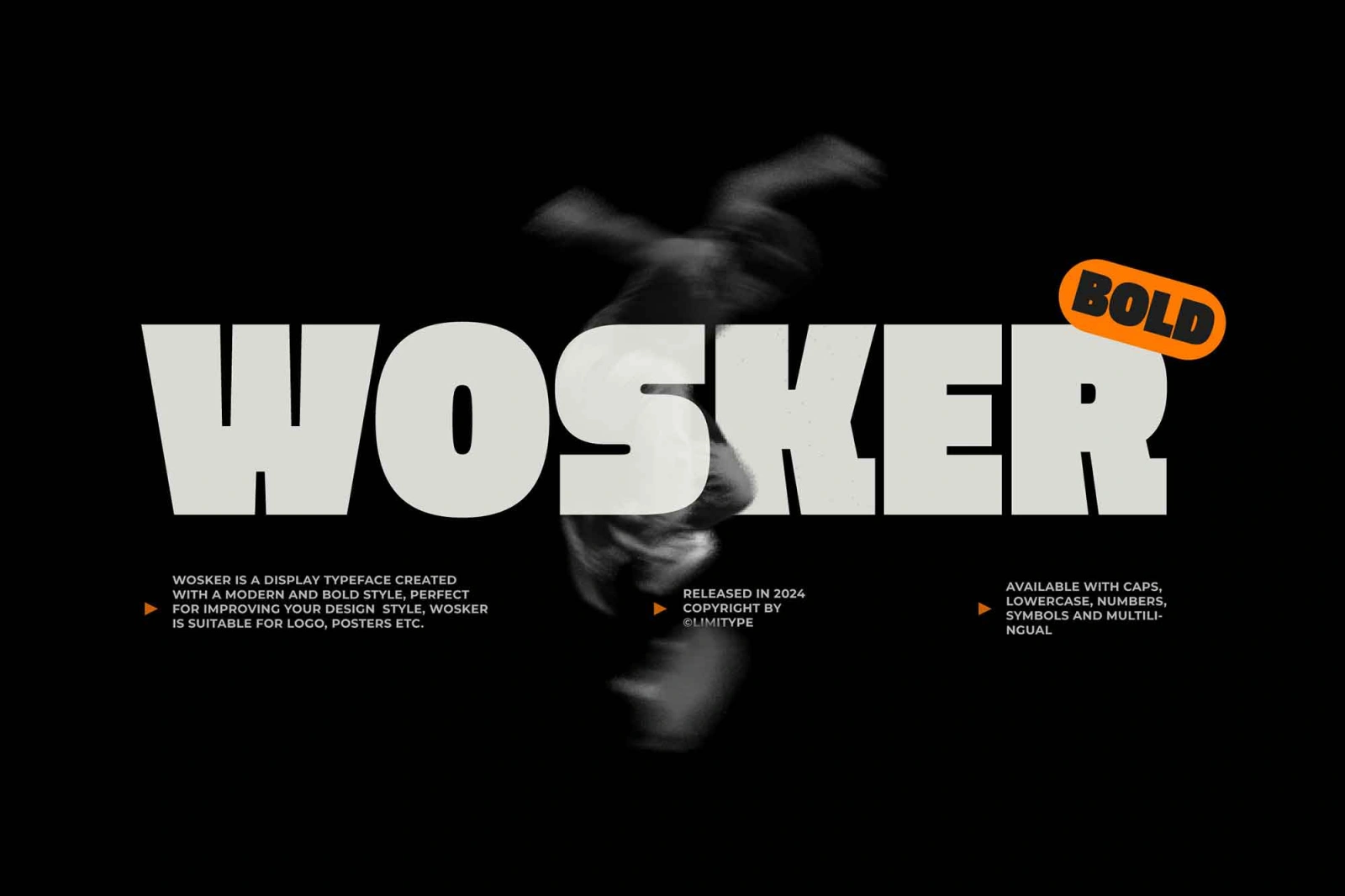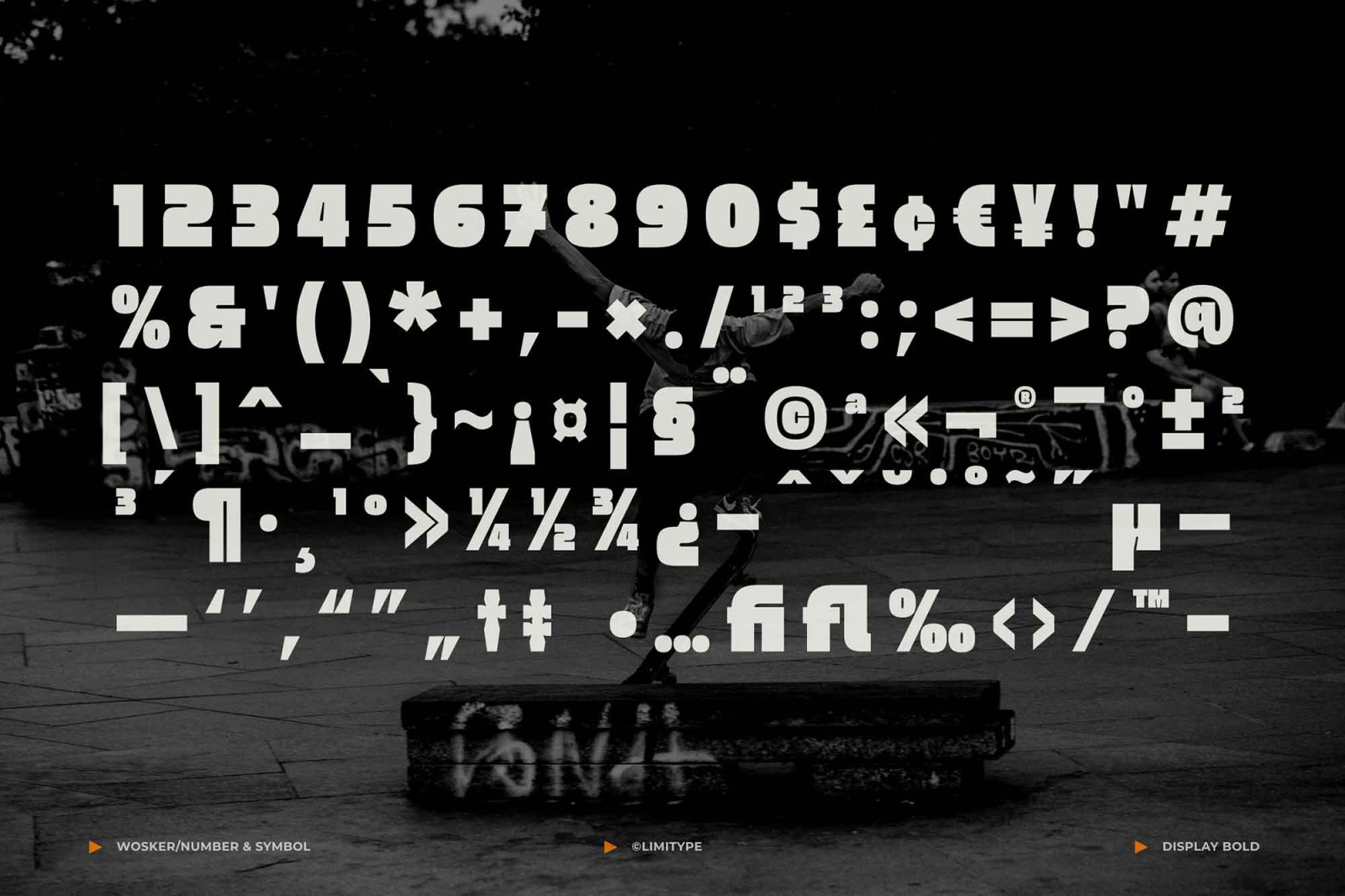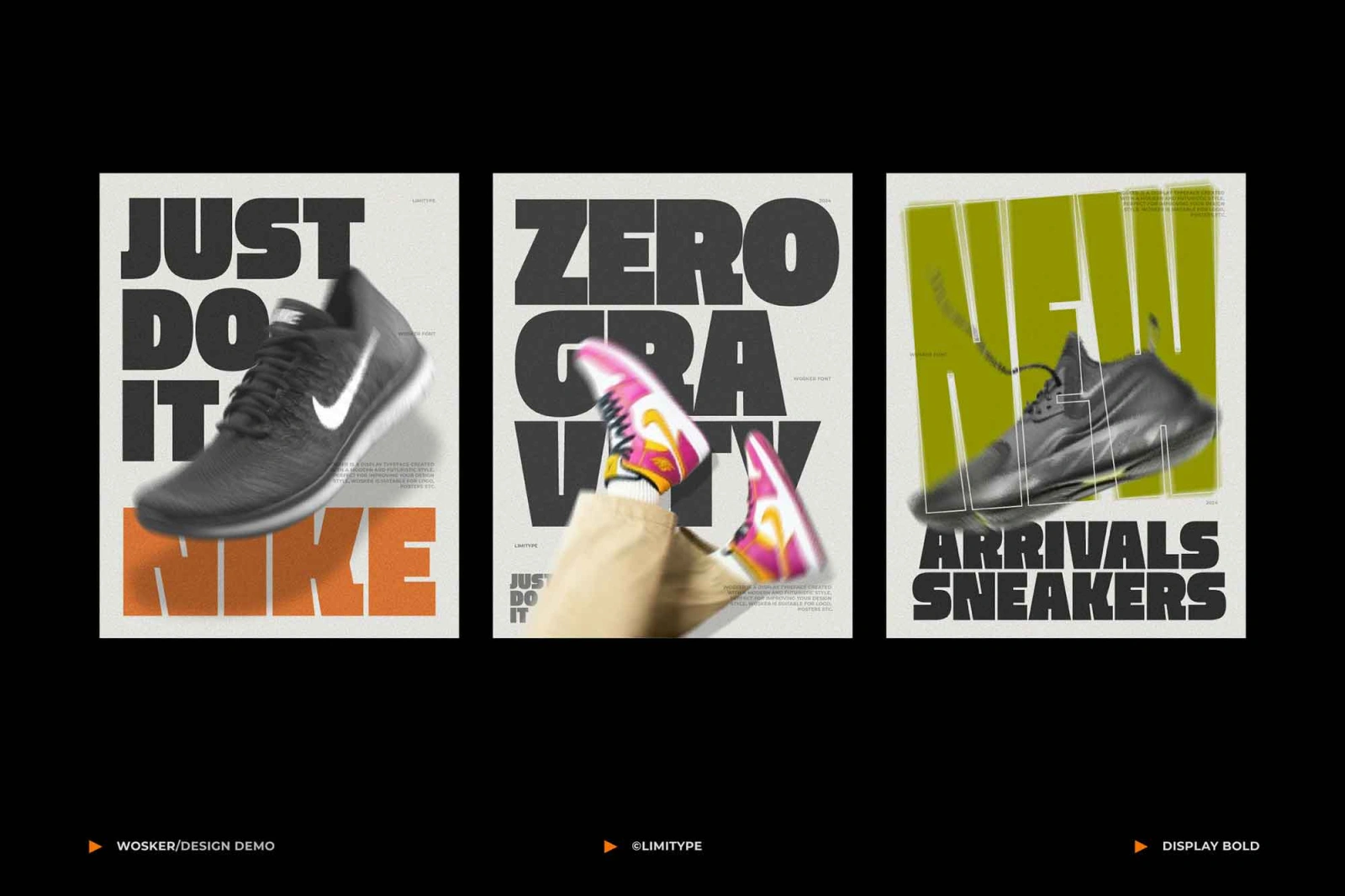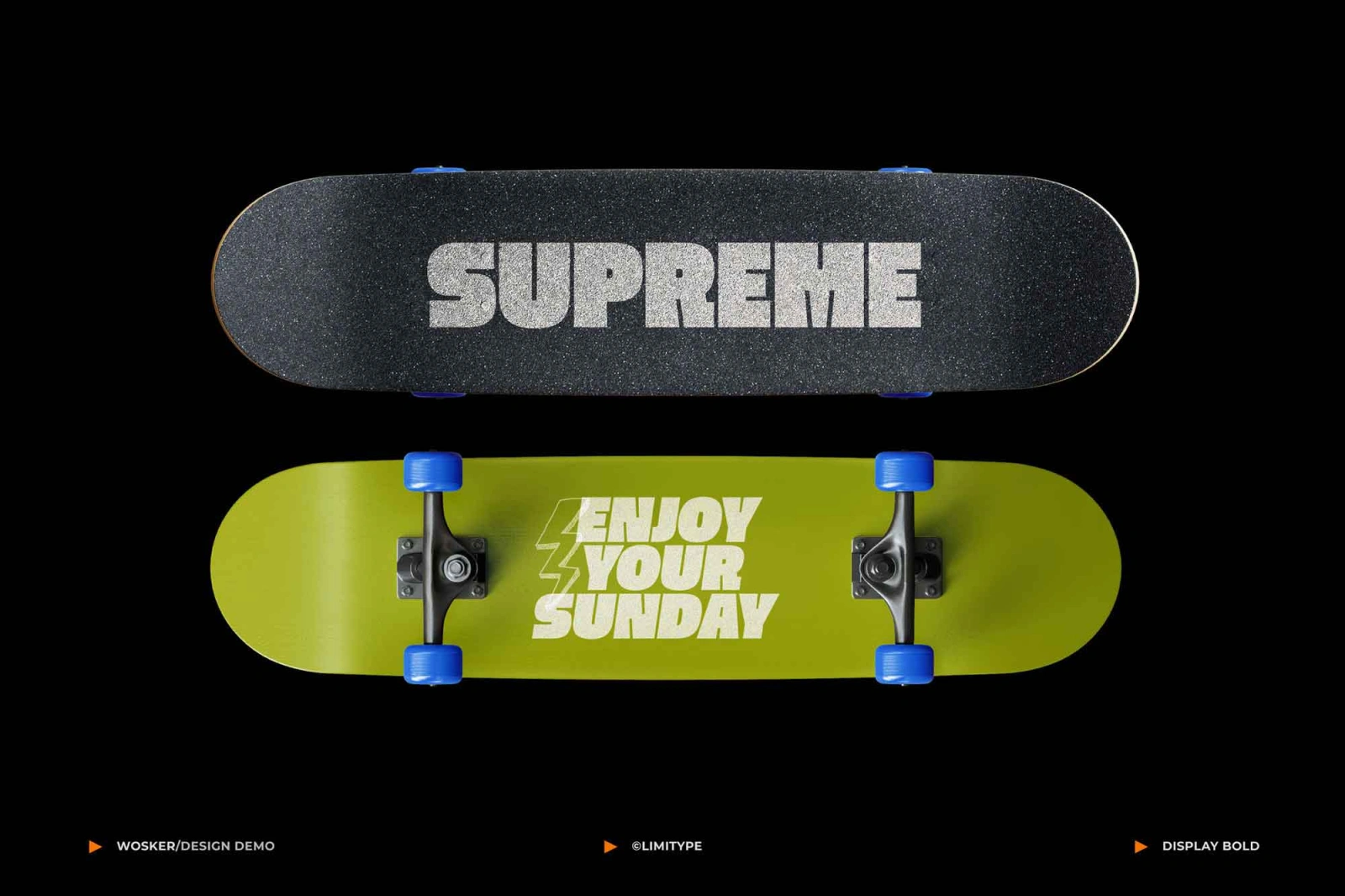
Wosker – Bold Free Font
Wosker – Bold Free Font is a contemporary typeface featuring bold, striking characters and a heavy weight, making it ideal for headlines, logos, and poster designs. Its distinctive style blends sharp and soft edges, with smooth letter alignment and subtle slab serif touches on select characters. As demonstrated in the visual examples, Wosker – Bold Free Font excels at creating attention-grabbing headlines for posters, product packaging, and physical merchandise. It is also perfect for branding, helping craft logos and a cohesive business identity. The font includes both uppercase and lowercase letters, supports multiple languages, and comes with numbers and symbols.